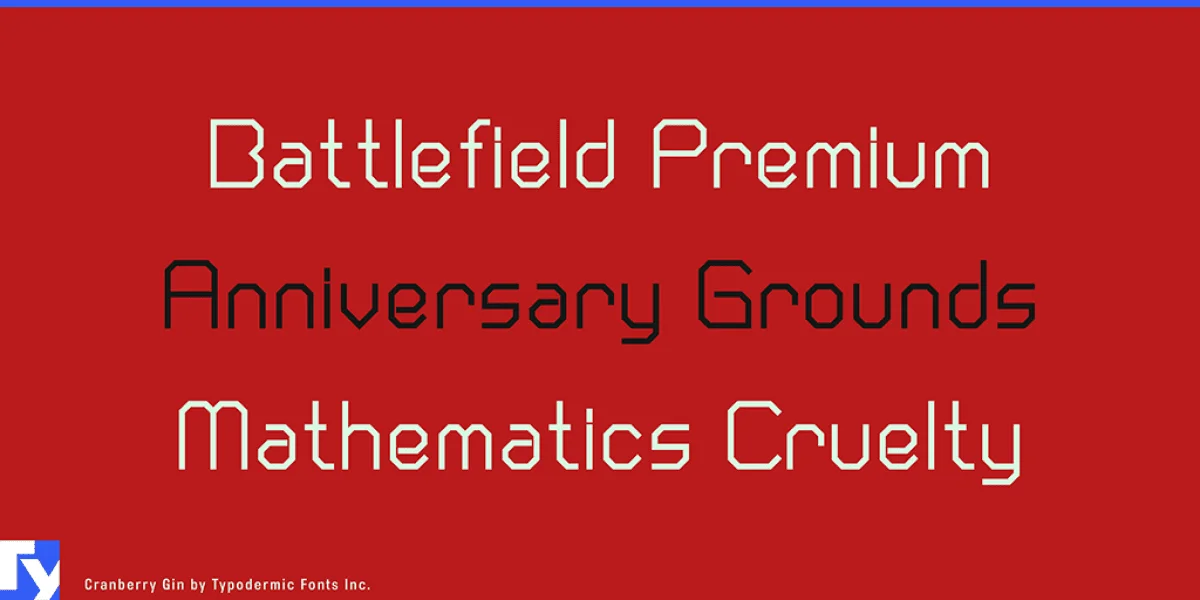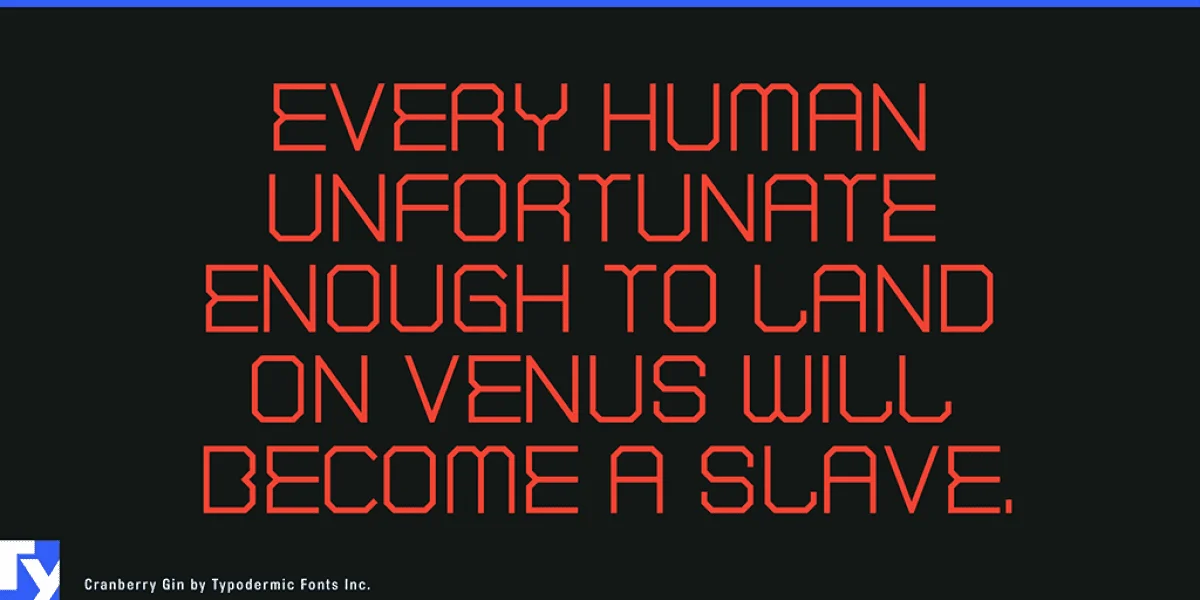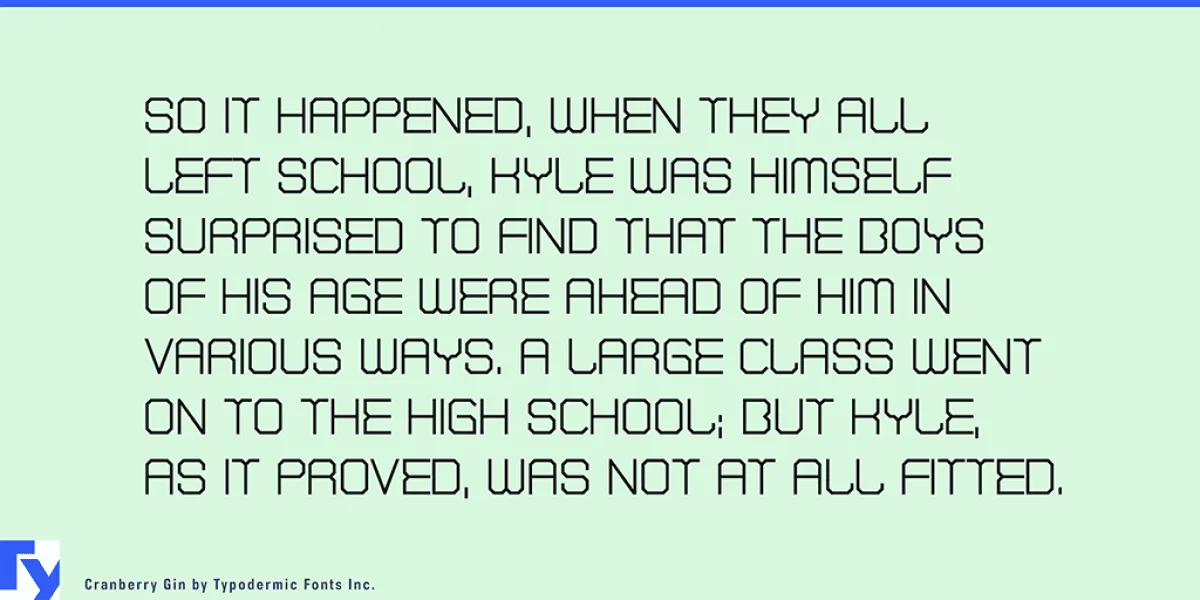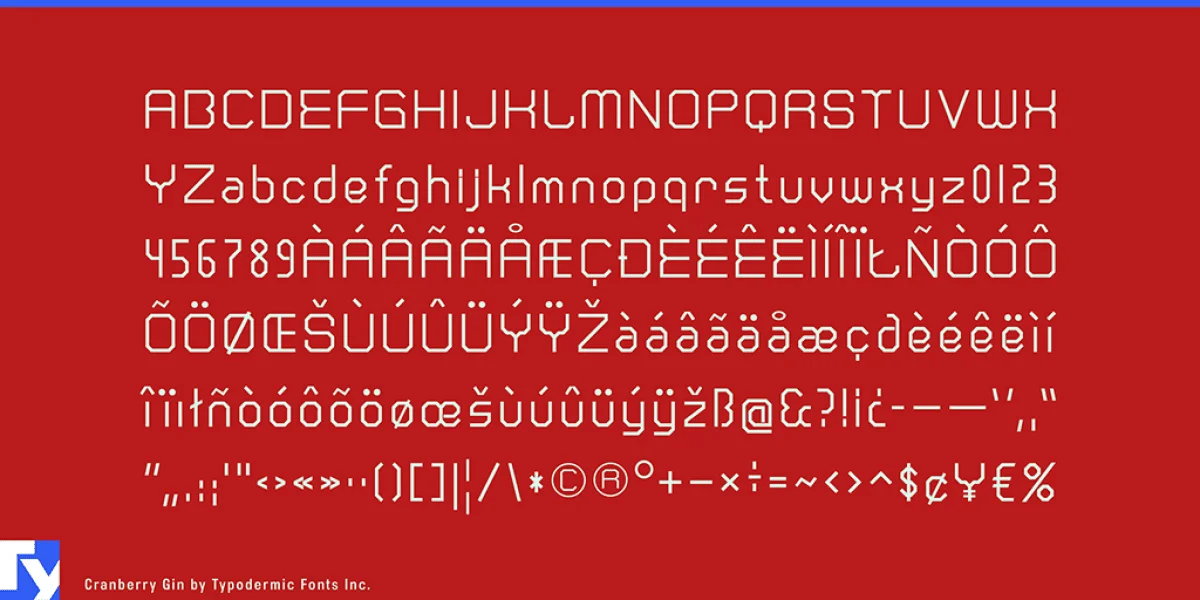
Cranberry Gin is an octagonal, technical sans-serif display typeface, reminiscent to 1980s X/Y pen plotter fonts. Use it to deliver your message in a robotic, angular tone. Some Latin-based European writing systems are supported, including the following languages. Afaan Oromo, Afar, Afrikaans, Albanian, Alsatian, Aymara, Basque, Bemba, Bikol, Breton, Cape Verdean, Creole, Catalan, Cebuano, Chamorro, Chavacano, Danish, Dawan, Dholuo, Dutch, English, Estonian, Faroese, Fijian, Filipino, Finnish, French, Frisian, Friulian, Galician, Genoese, German, Guadeloupean Creole, Haitian Creole, Hiligaynon, Icelandic, Ilocano, Indonesian, Irish, Italian, Jamaican, Kaqchikel, Kikongo, Kinyarwanda, Kirundi, Lombard, Low Saxon, Luxembourgish, Makhuwa, Malay, Ndebele, Neapolitan, Norwegian, Novial, Occitan, Papiamento, Piedmontese, Portuguese, Quechua, Rarotongan, Romansh, Sango, Saramaccan, Sardinian, Scottish Gaelic, Shona, Sicilian, Silesian, Slovak, Slovenian, Somali, Sotho, Spanish, Swahili, Swazi, Swedish, Tagalog, Tetum, Tshiluba, Tsonga, Tswana, Tumbuka, Uzbek (Latin), Venetian, Võro, Walloon, Waray-Waray, Wayuu, Xhosa, Yapese, Zapotec Zulu and Zuni.